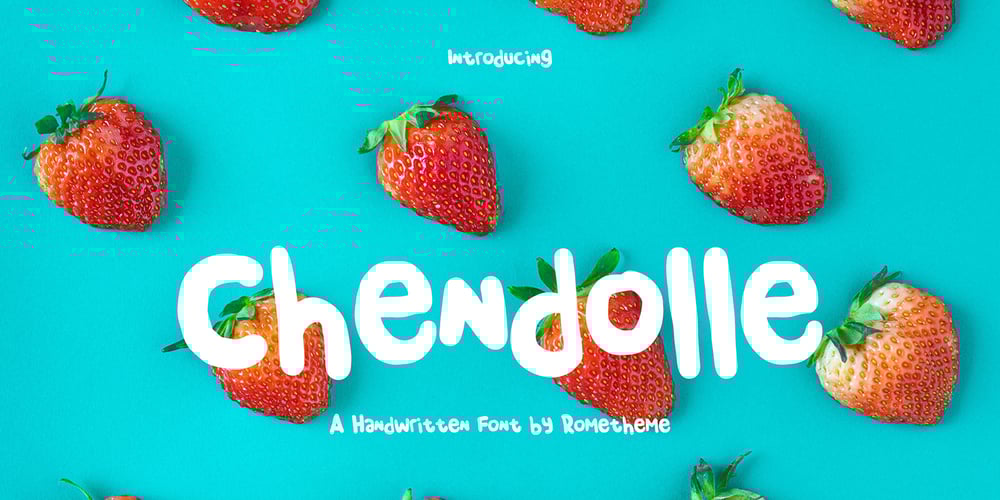
Chendolle Font Family was designed by Yahdi Kumala and published by Rometheme. Chendolle contains 1 styles and family package options. Chendolle is a bold display font, it has a fun and cute style and is perfect for creating playful kids designs.